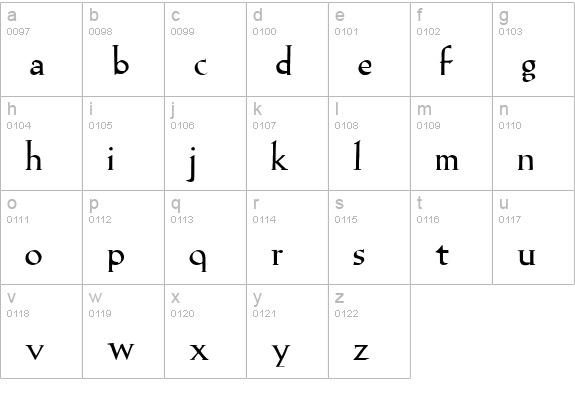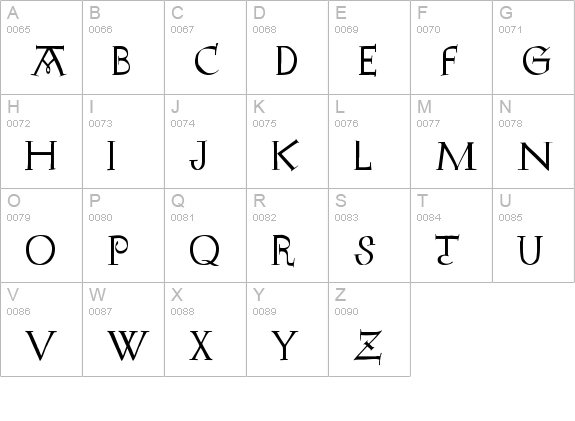
Rudolfo Font Details
Rudolfo font is a stunning display typeface that exudes elegance and sophistication. Its sleek lines and unique curves make it perfect for a wide range of design projects, from branding to editorial design. The font's versatility allows it to be used in both digital and print media, making it a valuable addition to any designer's toolkit. The best part? Rudolfo font is completely free to download at FontsMarket.com. This means that you can access this premium font without having to spend a dime. Whether you're a seasoned designer looking to add a new font to your collection or a beginner in need of a high-quality typeface, Rudolfo font has got you covered. Download it today and elevate your designs with this exceptional font.